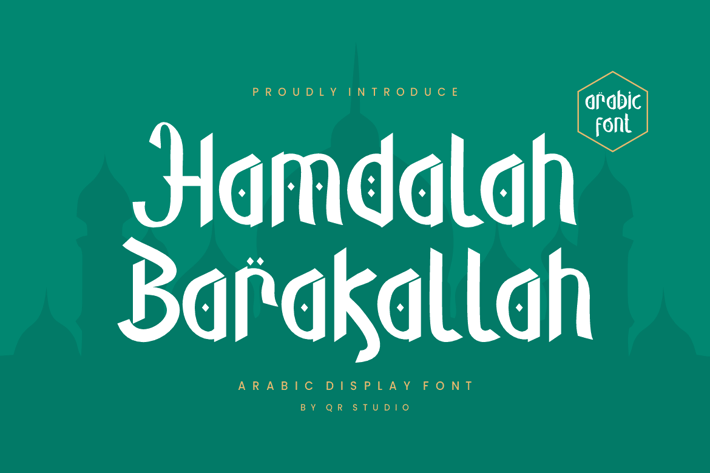
Hamdalah Barakallah - Arabic Font
Hamdalah Barakallah Font is a Arabic and authentic display font.
The font is suitable for any branding project like poster, logo, ramadhan, and many more.